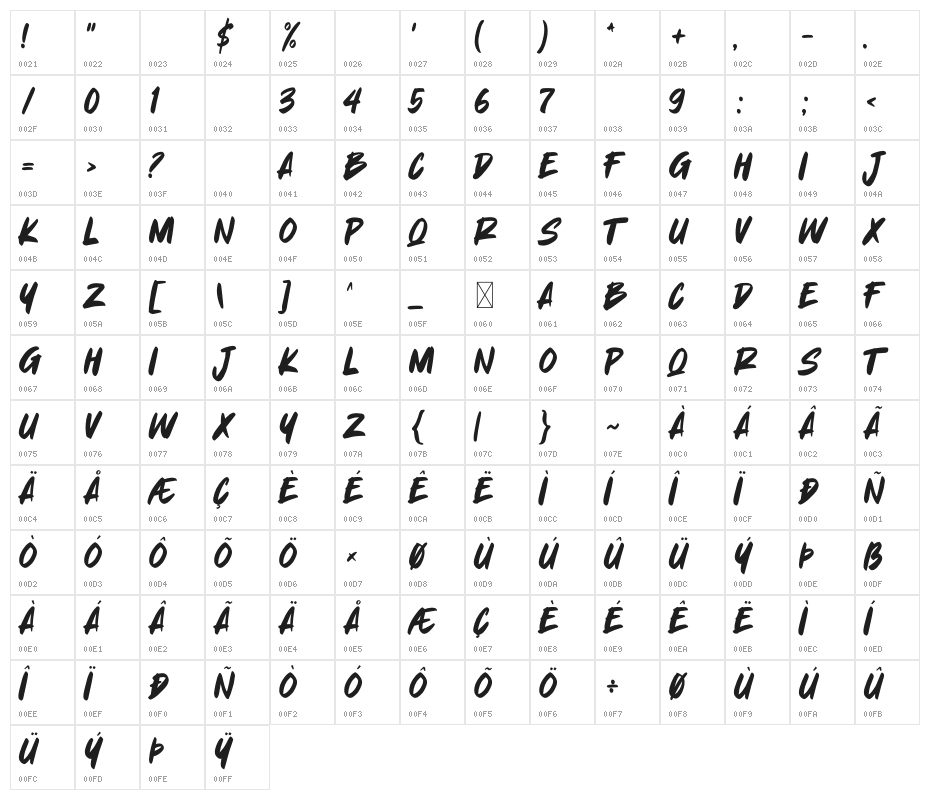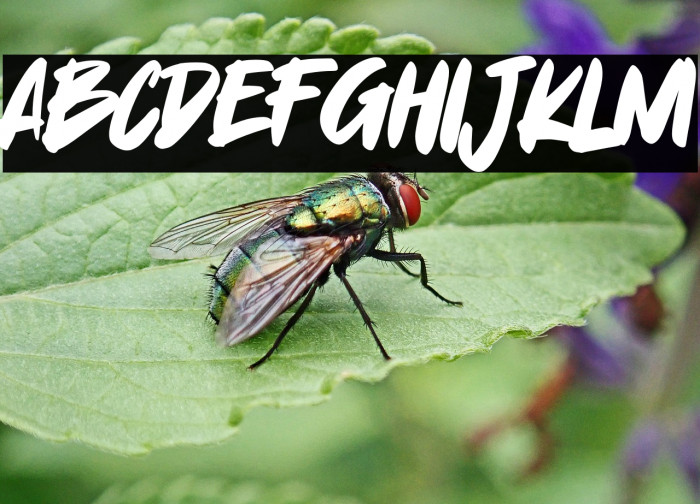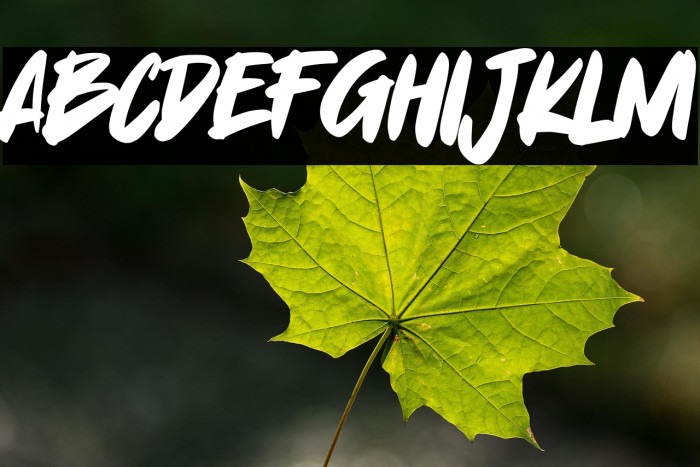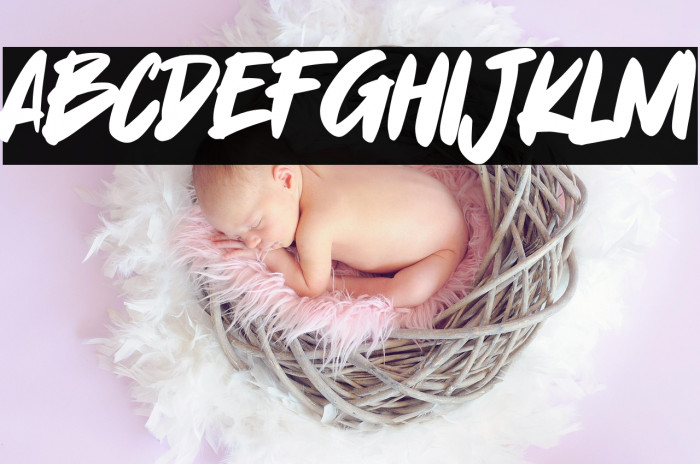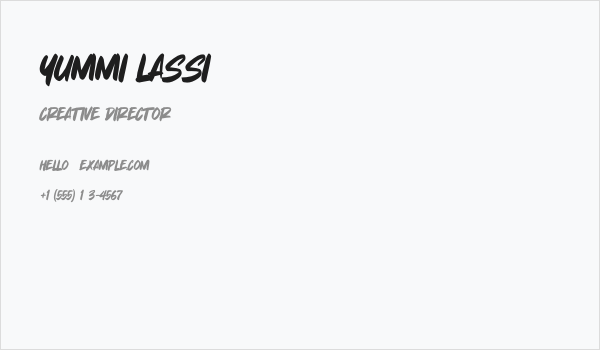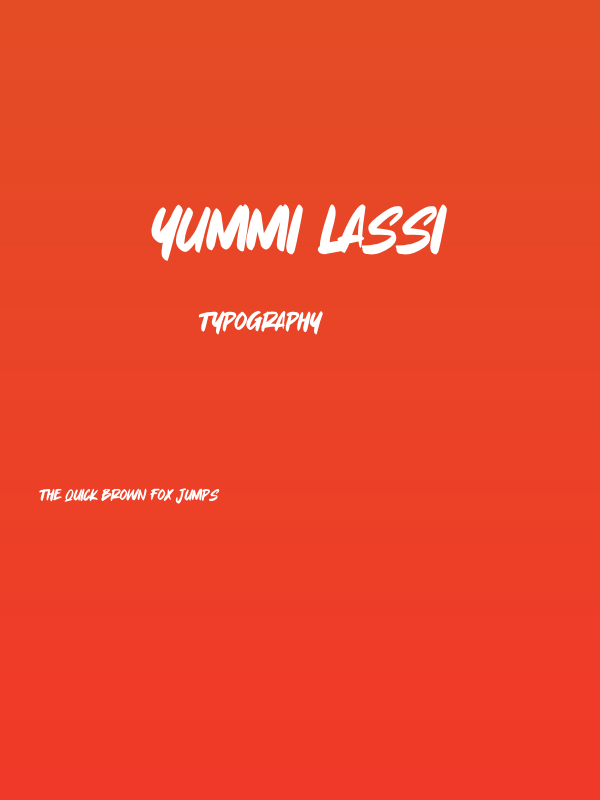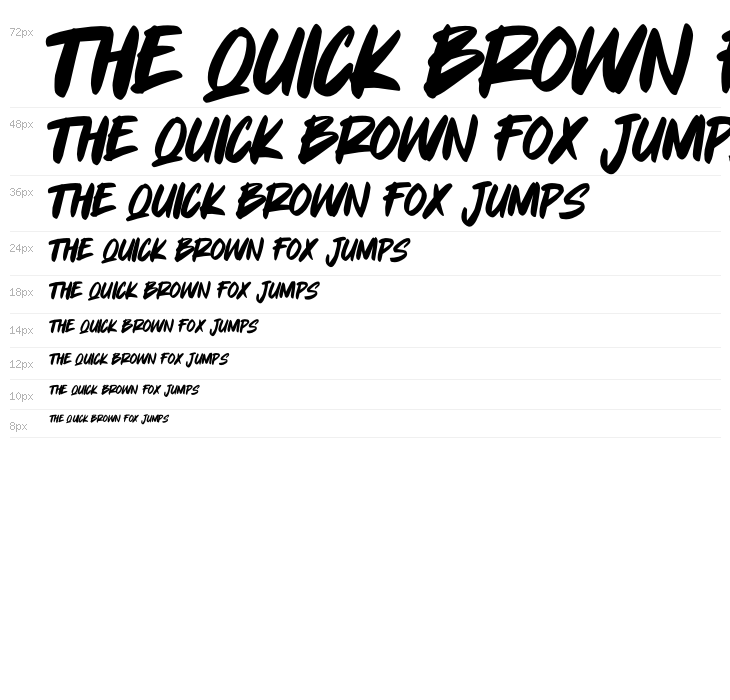
Yummi Lassi Font
Yummi Lassi Description
This font exudes a bold and energetic style, characterized by its thick, brush-like strokes that convey a sense of movement and dynamism. The letters are slightly slanted, adding to the casual and informal feel, reminiscent of handwritten script. The uppercase and lowercase letters maintain a consistent weight, ensuring readability while retaining a playful aesthetic. The numbers and special characters are designed with the same boldness, making them stand out effectively. This font is ideal for projects that require a personal touch or a lively, informal vibe.
| Proposed Projects | Ideal for branding, posters, social media graphics, and any project needing a lively, personal touch. |